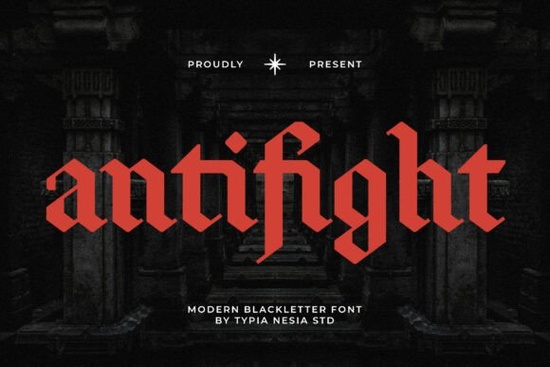
Looking for a bold, striking font that commands attention? Antifight is a modern take on the classic Gothic blackletter style perfect for projects where you want to make a strong visual impact. With its sharp angles and dramatic letterforms, it brings together the raw energy of medieval Old English with a clean, contemporary edge. Whether you're designing band logos, horror movie posters, or streetwear graphics, Antifight delivers a fearless presence that stands out.
What makes Antifight stand out from other blackletter fonts?
While many blackletter fonts lean heavily into historical authenticity, Antifight keeps things fresh by balancing tradition with modern clarity. The strokes are bold but not cluttered, and the spacing between letters allows your message to breathe even at smaller sizes. It’s ideal for high-contrast designs where readability still matters like merchandise, game titles, or branding for underground music scenes.
You’ll notice how each character has weight and intention. The uppercase letters especially have a commanding structure, while the lowercase (when available) add subtle contrast without losing the overall intensity. This balance makes it suitable not just for aggressive themes, but also for sophisticated dark aesthetics in fashion, tattoo art, or editorial layouts.
Great for creative projects that need attitude
- Band logos and music merch – Perfect for hardcore, metal, or punk-inspired brands that want a timeless yet edgy look.
- Esports and gaming branding – Use it for team names, tournament banners, or in-game UI elements that demand dominance.
- Horror and dark-themed posters – Adds instant atmosphere to movie promos, event flyers, or Halloween designs.
- Streetwear and apparel – Ideal for T-shirt prints, hoodies, or capsule collections with a rebellious vibe.
- Tattoo-inspired artwork – Its angular precision works well for stencil-style designs or minimalist blackletter tattoos.
If you’re working on a project that needs a sense of authority, Antifight gives you that without feeling dated or overused. It’s not just another blackletter font it’s built for today’s creators who value both heritage and modern functionality.
How does Antifight compare to similar fonts?
Designers often explore multiple options before choosing a typeface. Here’s how Antifight fits among others in the same space:
- Compared to Archer, Antifight has more aggressive angles and tighter spacing, making it better suited for intense or high-impact visuals.
- Unlike Malvoid, which leans into ornate details, Antifight keeps things streamlined great if you prefer a cleaner, more functional look.
- While Grimersia feels more chaotic and hand-drawn, Antifight maintains consistent structure, which helps in digital design and scaling.
It’s not about being the most ornamental it’s about being the most effective for your message. Antifight strikes a balance between old-world grit and modern usability.
Where can I use Antifight beyond logos?
Think beyond just headlines. You can use it creatively in:
- Book covers for dark fantasy or thriller genres
- Event invitations for underground concerts or themed parties
- Branding for niche lifestyle products (e.g., leather goods, gothic accessories)
- Print-on-demand items like mugs, tote bags, or phone cases with bold text
- Animated intros or motion graphics where strong typography grabs attention fast
Final tip: Test it in context
Before finalizing your project, try using Antifight in different sizes and backgrounds. See how it looks on light vs. dark surfaces, and test it with your actual content. A font this strong can easily overpower a design if not balanced properly.